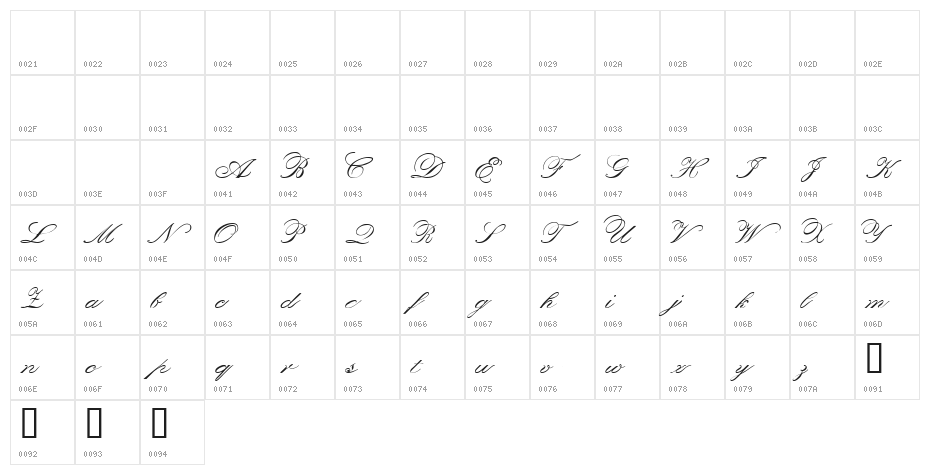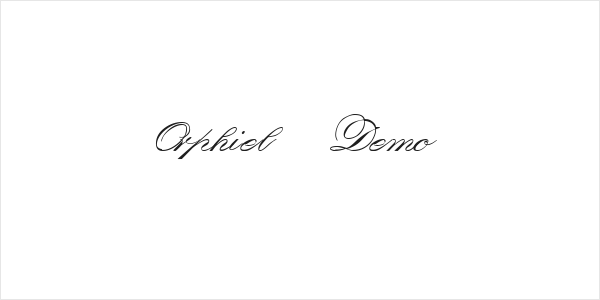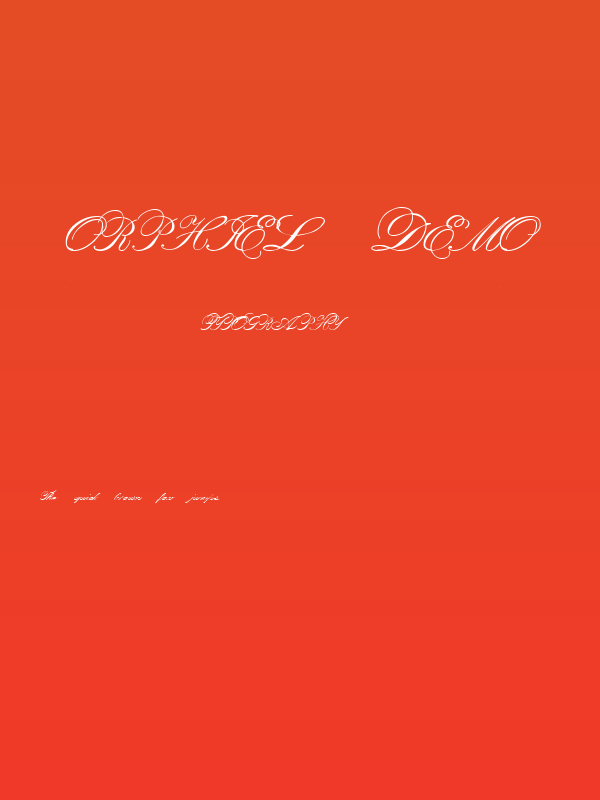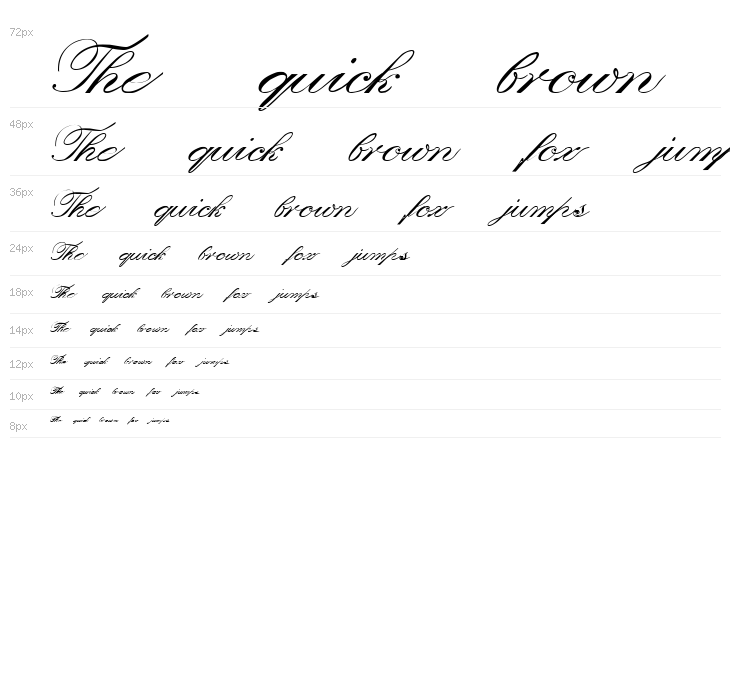
Orphiel Demo Font
Orphiel Demo Description
This elegant script font features flowing, interconnected letters with a classic and sophisticated style. The uppercase letters are ornate with intricate loops and swirls, while the lowercase letters maintain a smooth, cursive flow. The font exudes a sense of grace and refinement, making it ideal for formal invitations, elegant branding, and decorative purposes. The characters are well-balanced with a medium contrast in stroke thickness, adding to its readability despite the decorative elements. The overall appearance is both timeless and stylish, suitable for projects that require a touch of elegance.
| Use Case | Headlines, Invitations, Decorative text |
| Proposed Projects | Ideal for wedding invitations, elegant branding, decorative headings, and formal event materials. |